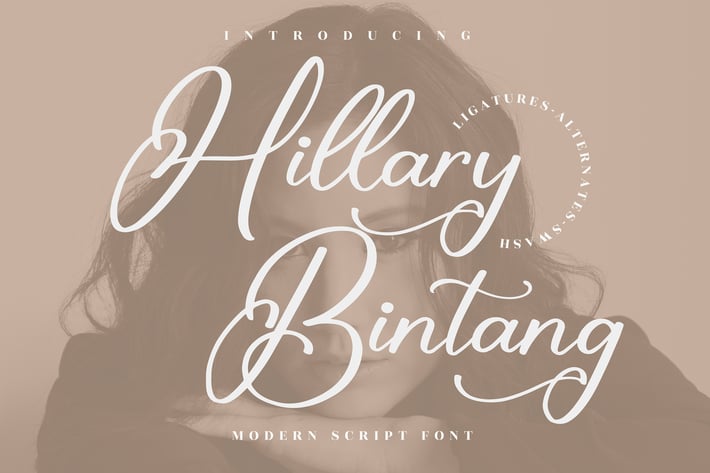
Hillary Bintang Modern Script Font
Hillary Bintang is a modern script font with graceful strokes and flowing curves, designed to bring a soft yet confident handwritten feel to your typography. Its elegant rhythm and natural signature style make it perfect for expressive branding that feels personal, classy, and timeless.
Modern script with elegant handwritten character
Smooth flowing strokes and balanced letterforms
Natural signature-style ligatures
Clean readability with stylish flair
Soft, expressive, and refined — a script font that turns handwriting into a statement.*